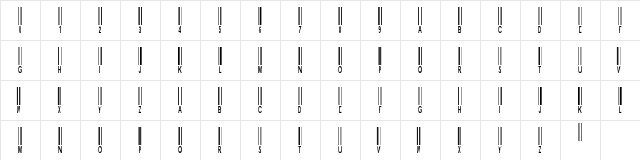
New Barcode Font tfb Regular
New Barcode Font tfb brings the precise, column-aligned rhythm of monospaced typography to designs that value technical clarity and systematic order.
Pro Tip: Use New Barcode Font tfb with slightly increased line-height for extended reading — fixed-width spacing can feel dense in longer passages without extra breathing room.